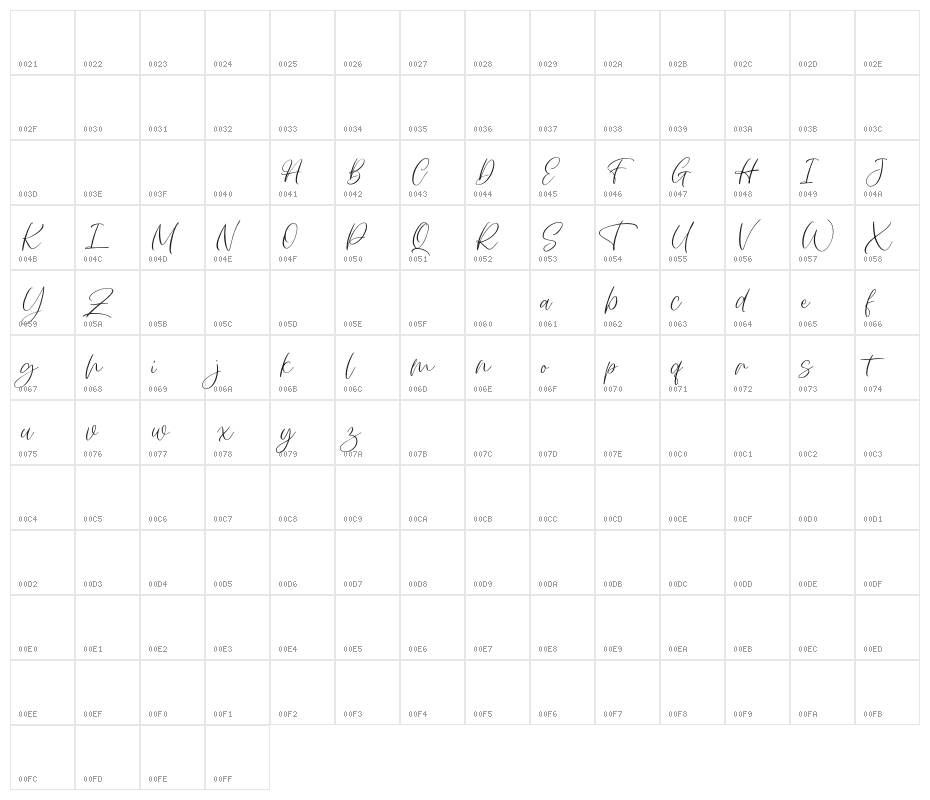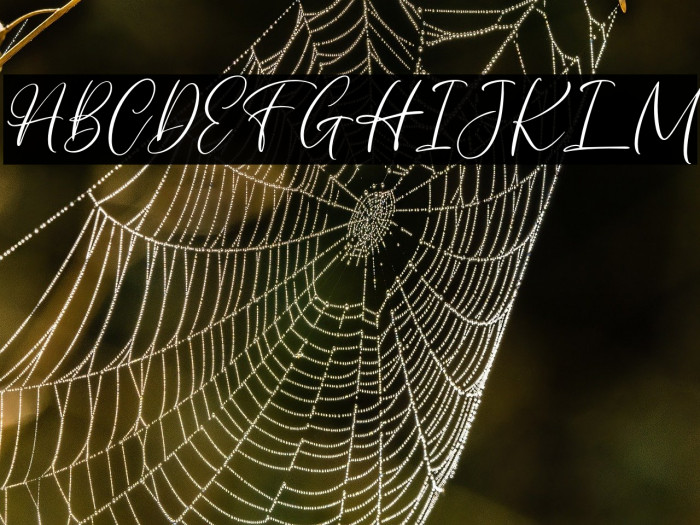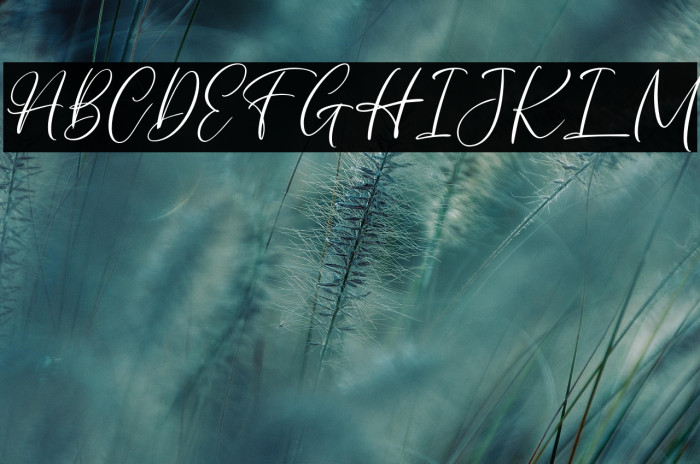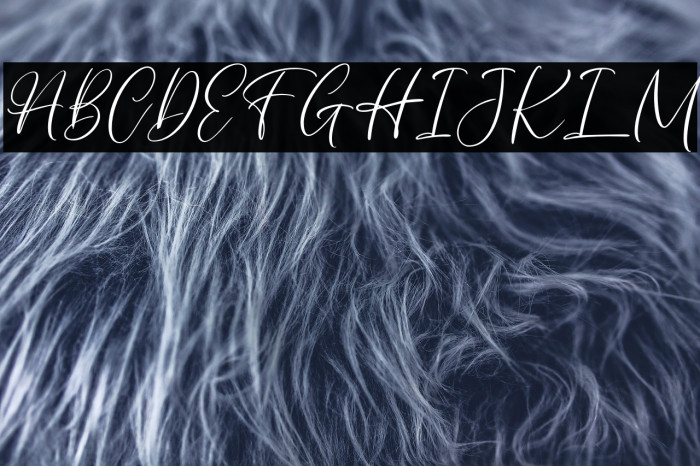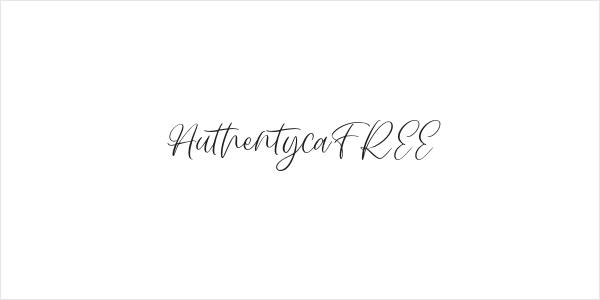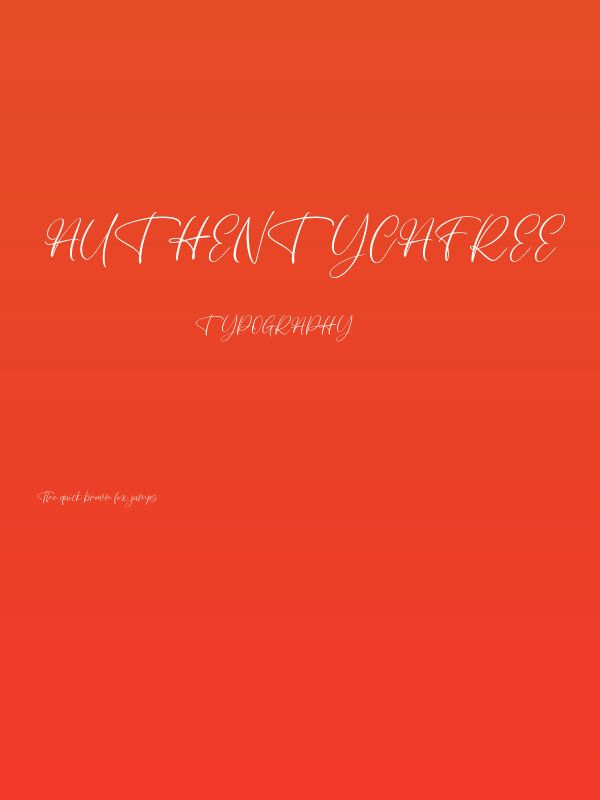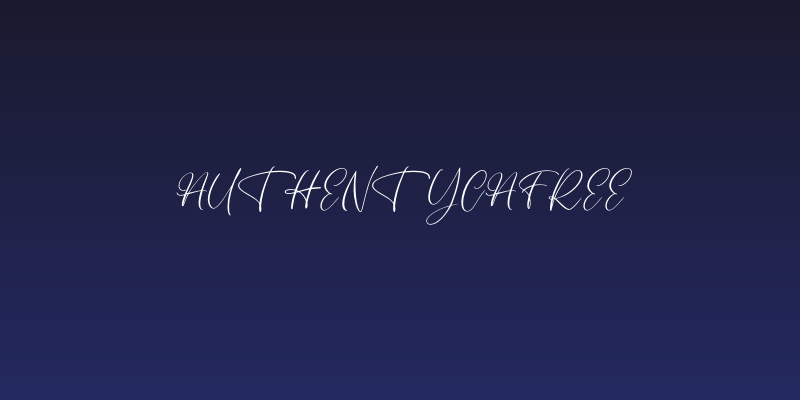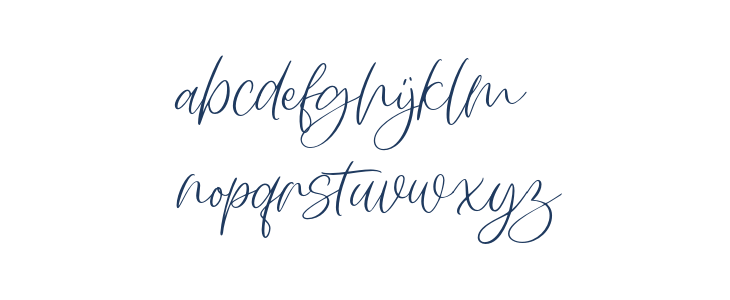
AuthentycaFREE Font
AuthentycaFREE Description
This font exudes elegance and sophistication with its fluid, cursive style. The characters are intricately designed, featuring smooth, flowing lines that mimic the natural strokes of handwriting. Each letter is distinct yet harmoniously connected, creating a seamless and graceful appearance. The uppercase letters are slightly more elaborate, with extended loops and swirls, while the lowercase letters maintain a consistent rhythm and balance. This font's delicate and artistic nature makes it ideal for projects that require a personal touch or a sense of refinement.
| Overall Style | Elegant |
| Use Case | Logos, Invitations, Greeting Cards |
| Proposed Projects | Ideal for wedding invitations, greeting cards, branding, and elegant logos. |